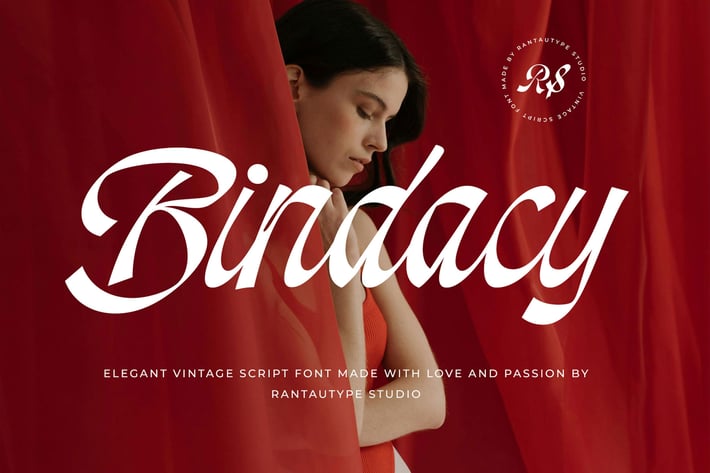
Bindacy Vintage Elegant Script Font
Bindacy is vintage script font inspire by old fashioned poster, 90s, 70s, 60s with embrace grace and retro vibes. Bindacy come with contrast shape character and flowles shape. Bindacy is a beautiful choice for any creative endeavor, creating, modern, chic, lifestyle design such as logotype, title, cover, branding, invitations, wedding designs, display and magazine, social media posts, advertisements, printed quotes, product packaging, corporate brand, product designs, labels, photography, watermarks, special events and any other project with vintage touch.
Standart Glyphs
Alternate and Ligature